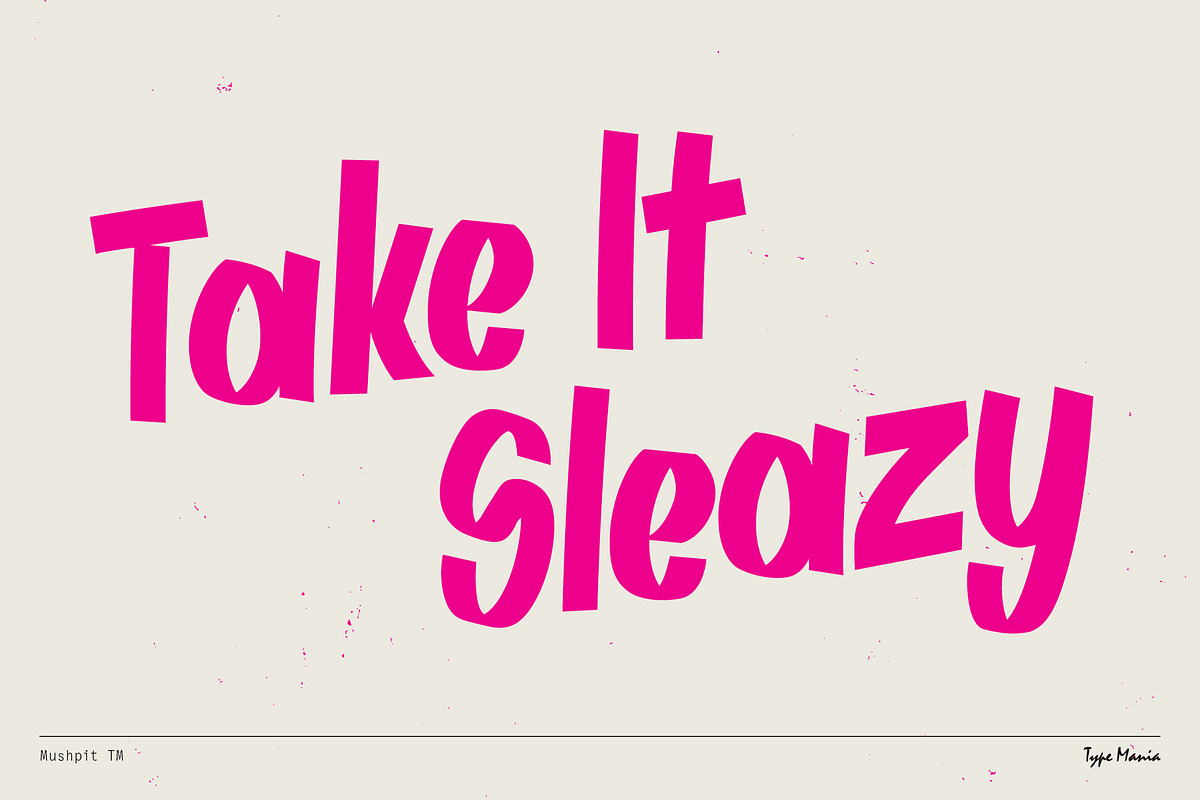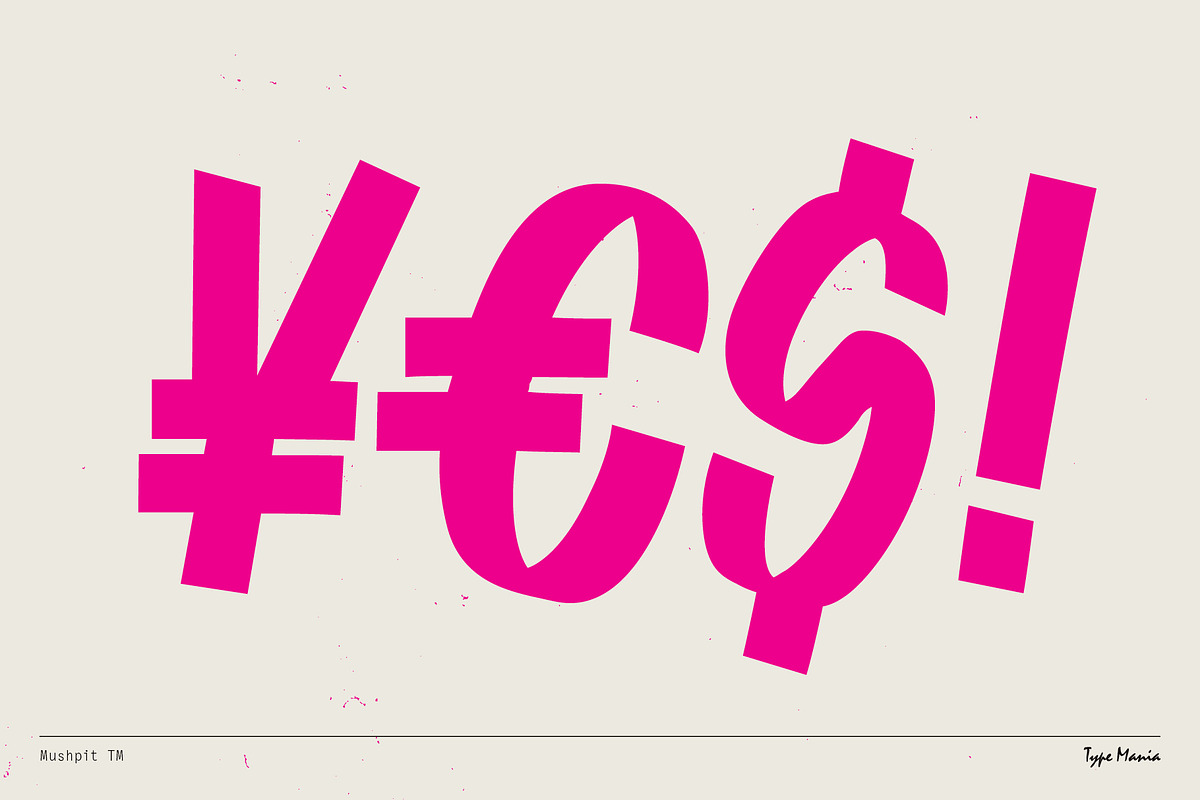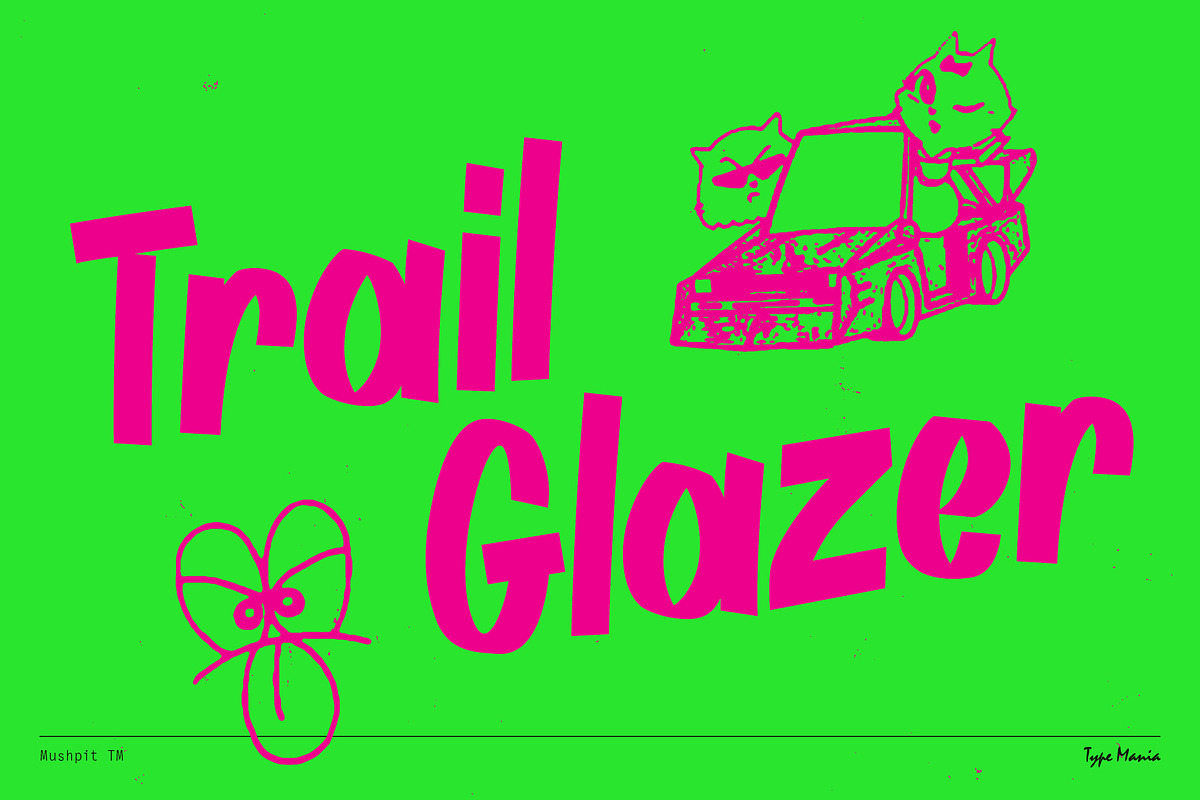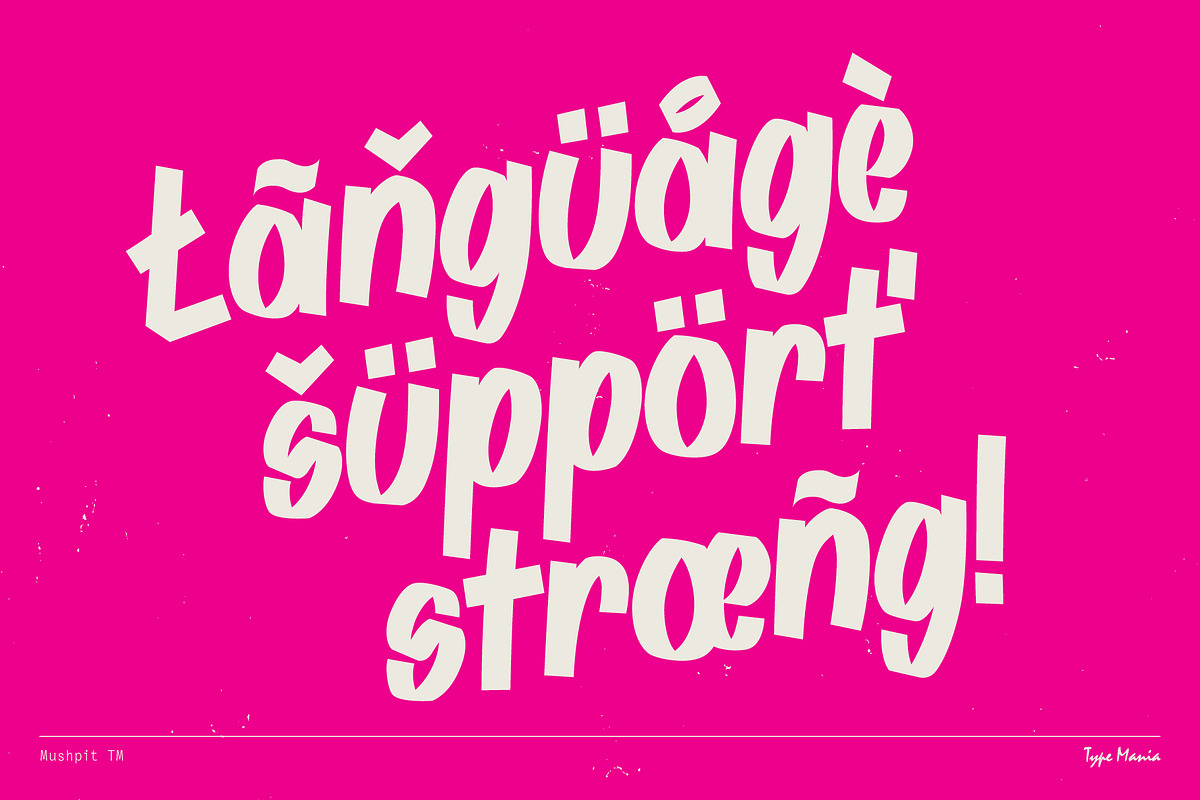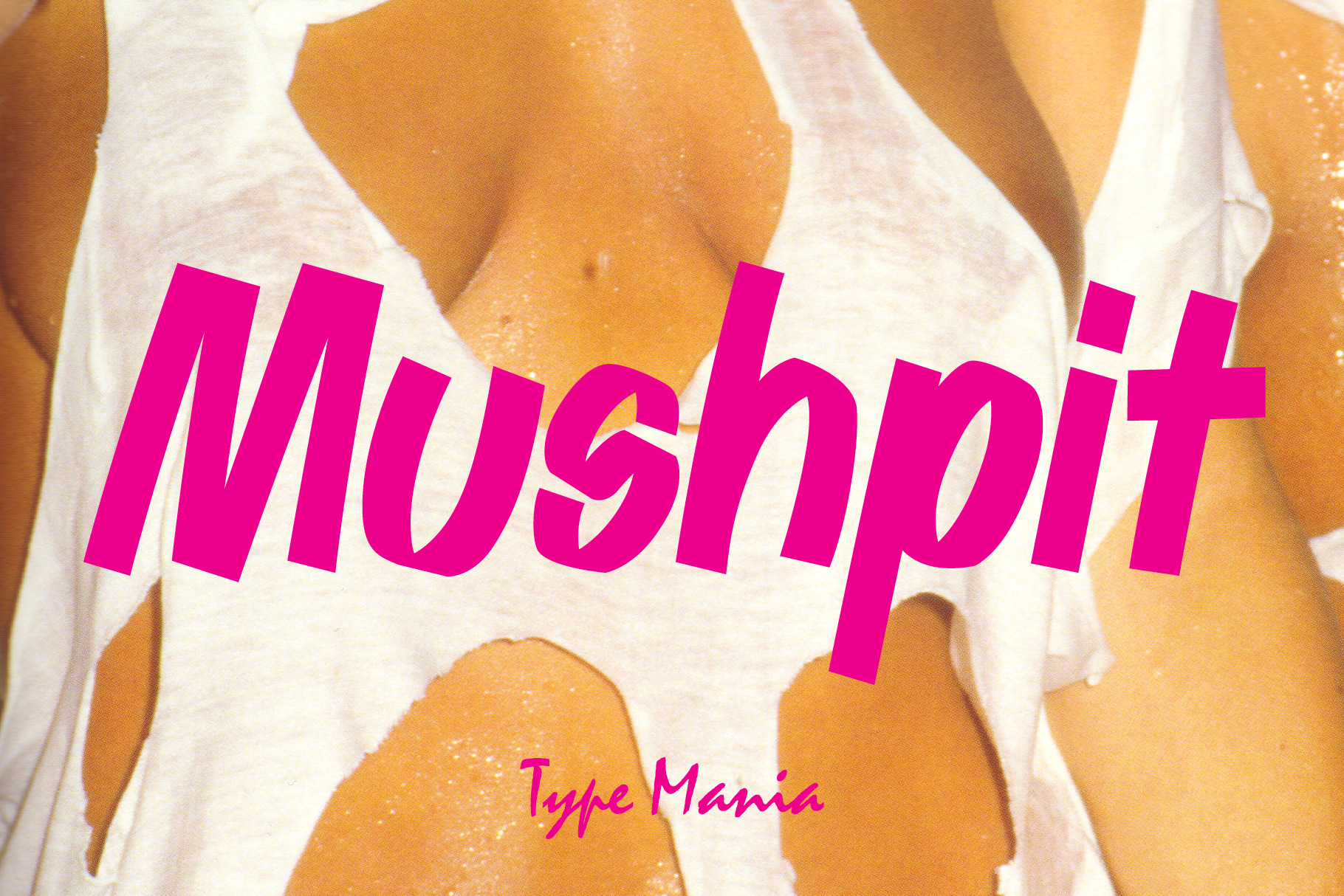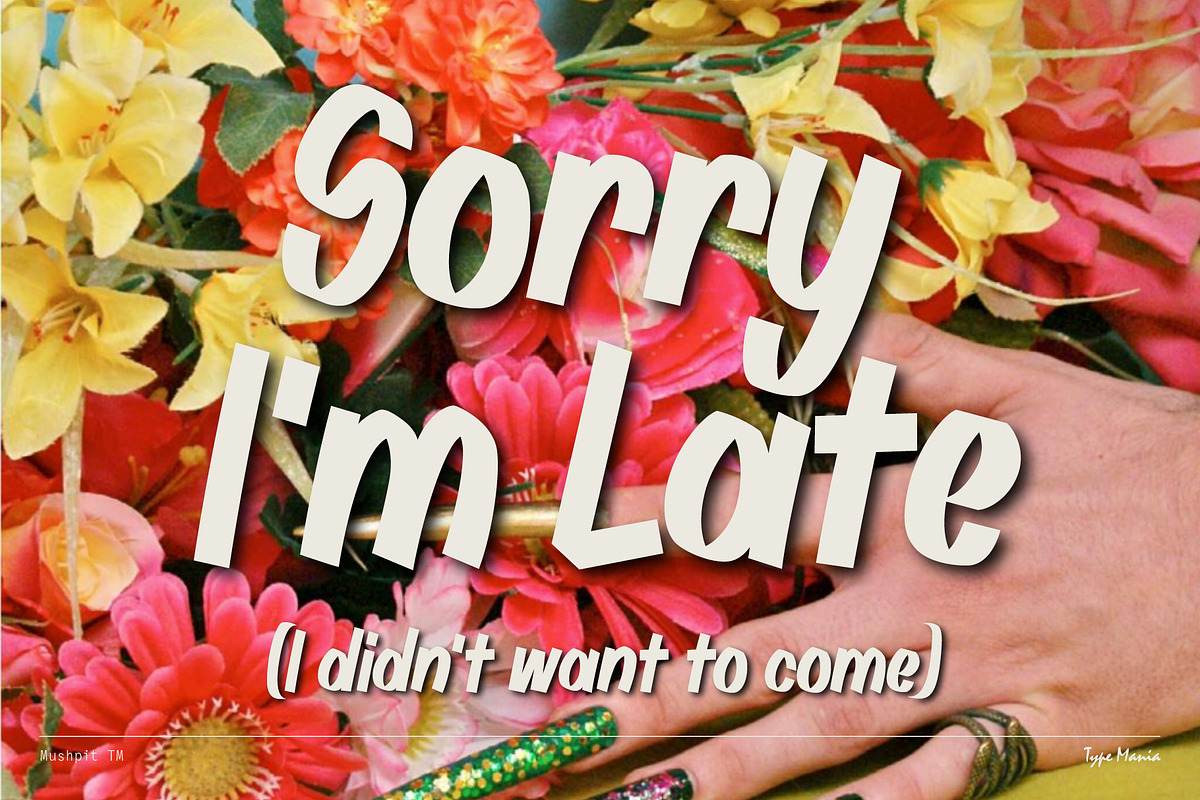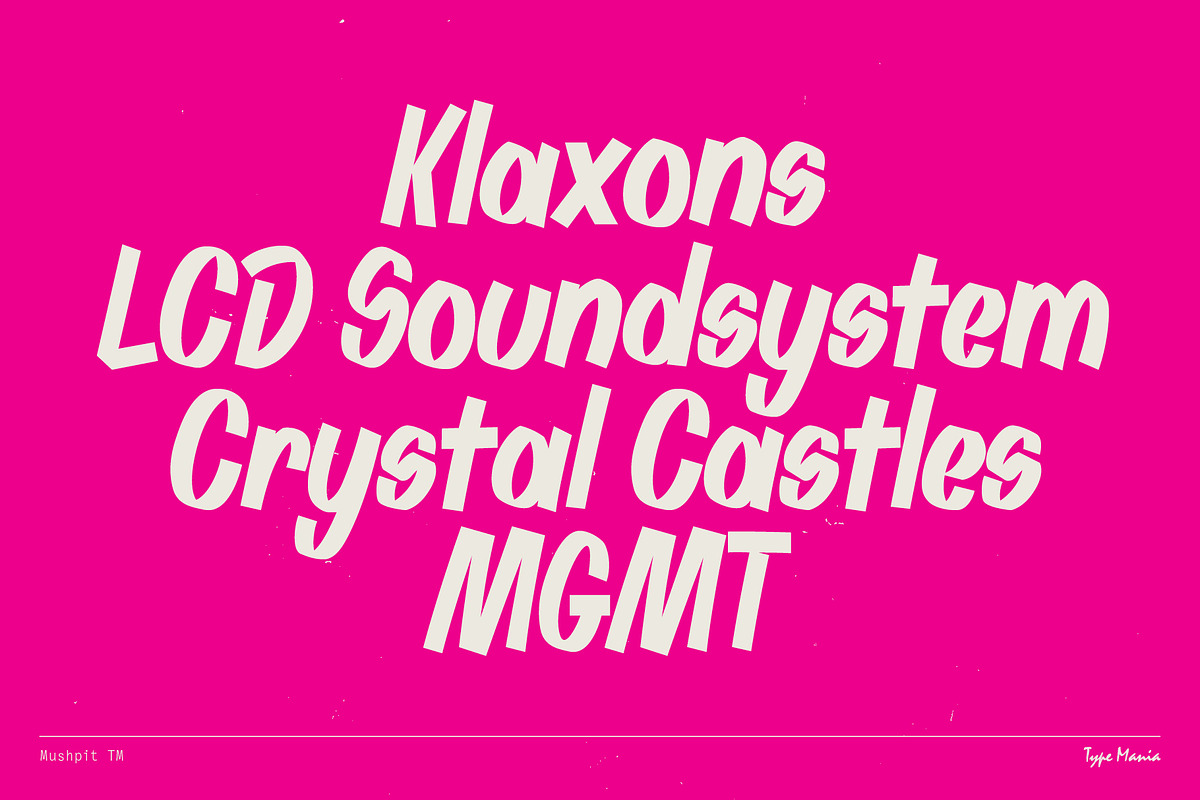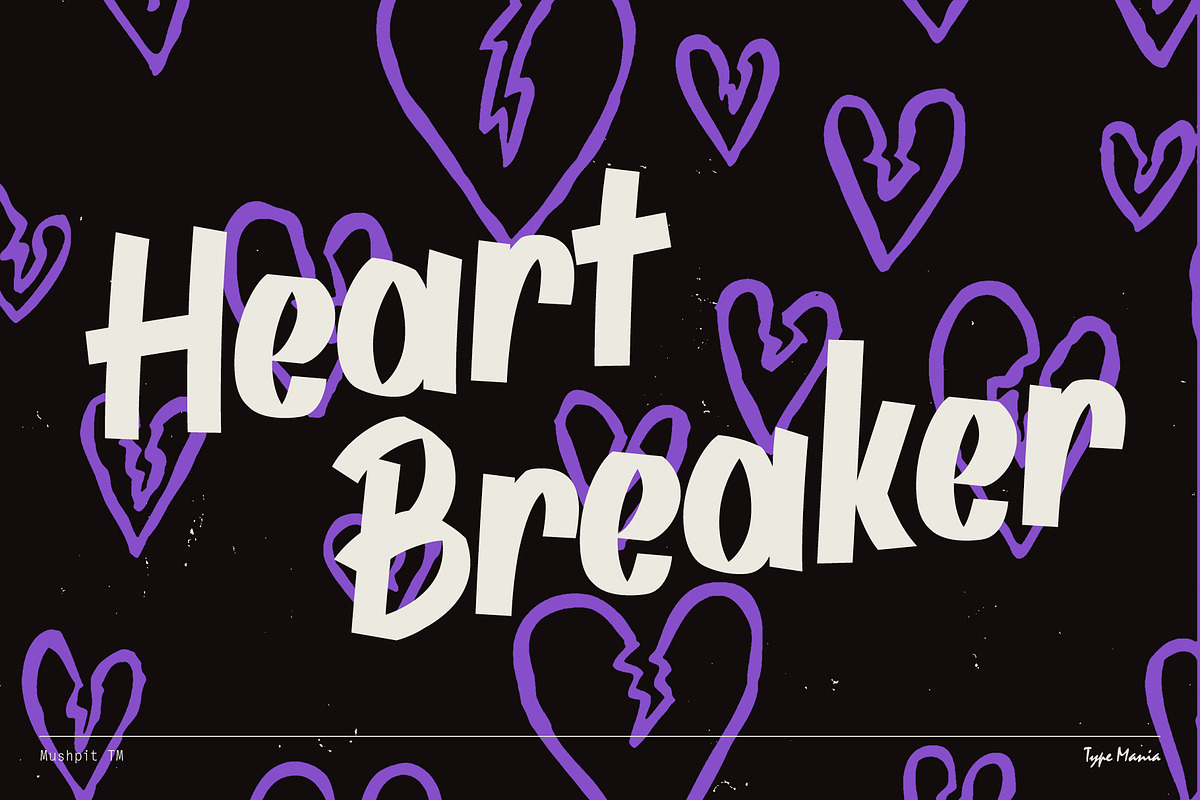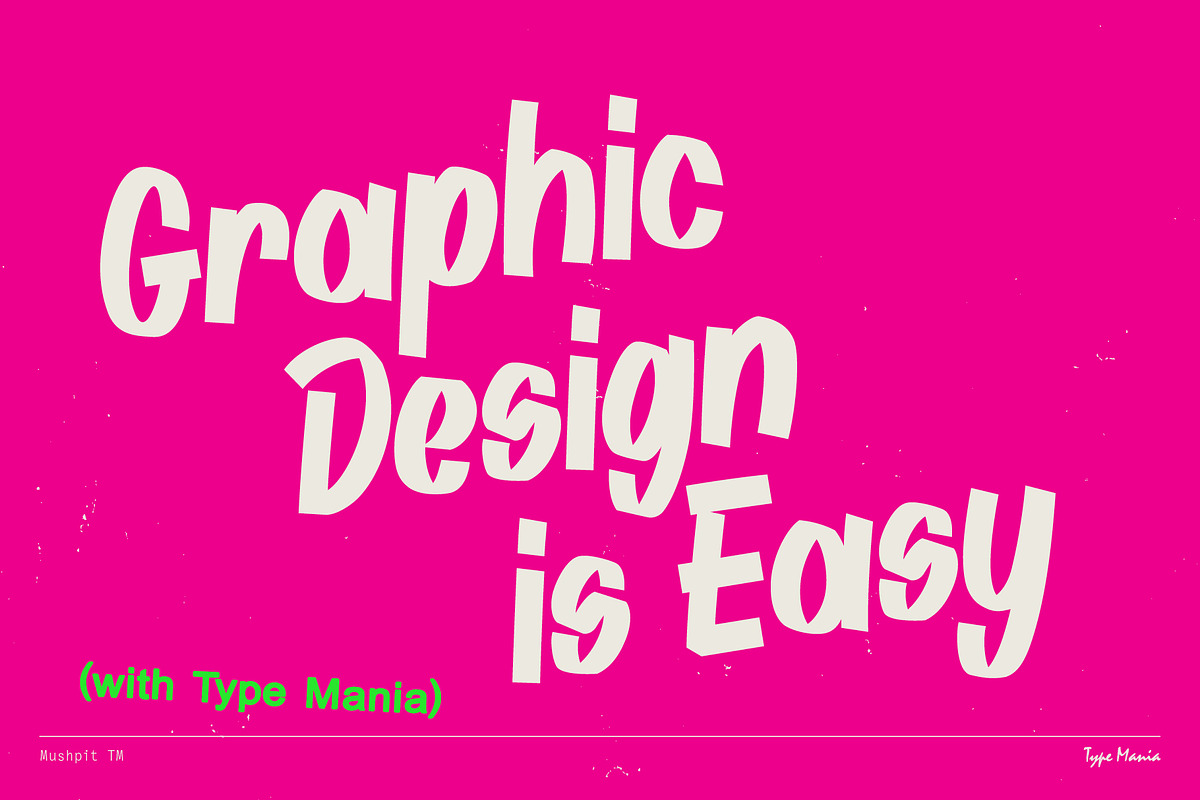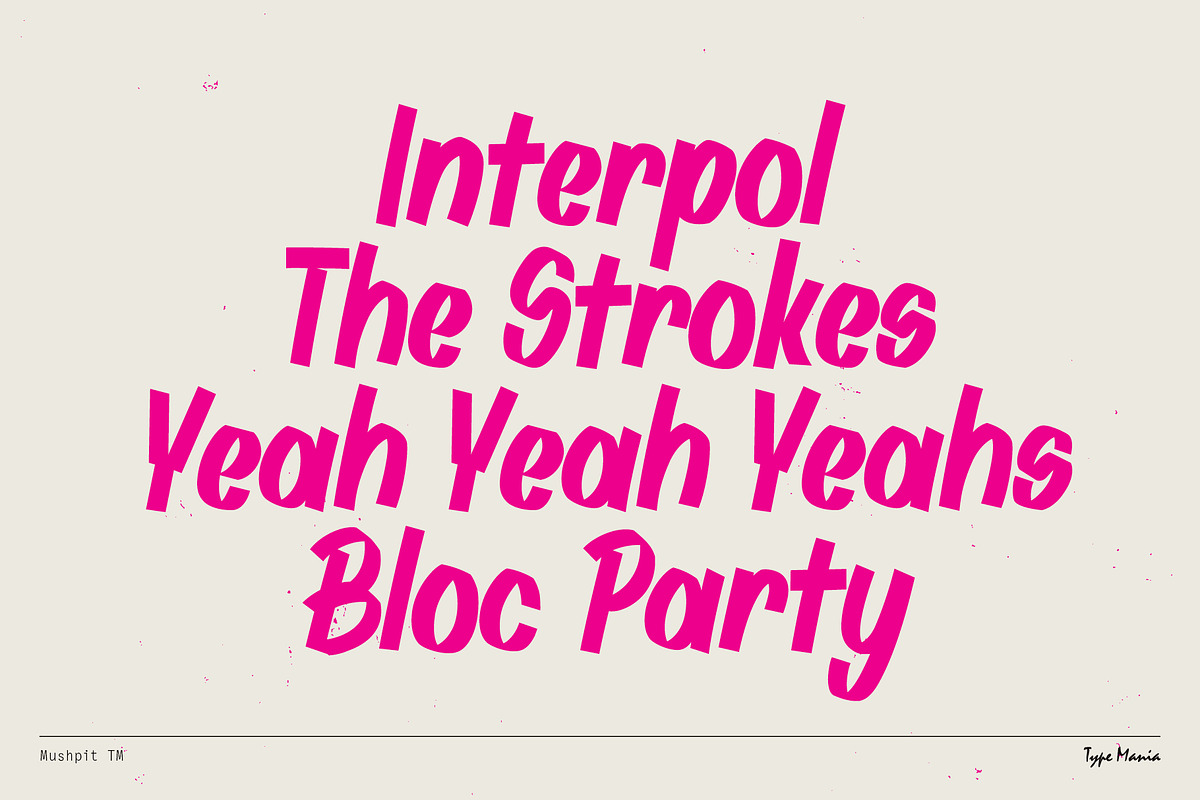
Mushpit TM – Seedy Marker Font
Get familiar with Mushpit TM—the grubby marker font from Type Mania. Bold without trying too hard, rough but intentional. Designed for those who trust instinct over perfection. No filter.